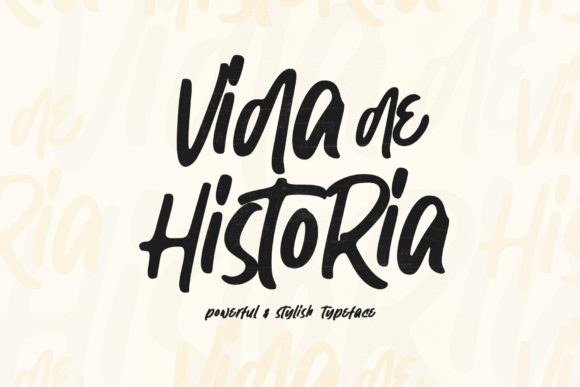
Introducing Vida De Historia, the display font that will transform your creative vision into a captivating reality. Crafted by the talented designers at Garisman Studio, Vida De Historia is a relaxed and adaptable font that will elevate your designs to new heights.
With its flowing curves and playful spirit, Vida De Historia is perfect for adding a touch of charm to your posters, presentations, and greeting cards. Its unique character will make your designs stand out from the crowd and leave a lasting impression on your audience.
Whether you're a seasoned designer or just starting, Vida De Historia is easy to use and incredibly versatile. Its smooth lines and consistent letter spacing make it a joy to work with, allowing you to create stunning designs effortlessly.
Step into a world of limitless creativity with Vida De Historia. Let your imagination soar as you craft captivating posters that draw attention from across the room. Engage your audience with vibrant presentations that leave a lasting impact. And create heartfelt greeting cards that express your emotions in a truly unique way.
With Vida De Historia, the possibilities are endless. Its versatility extends beyond posters, presentations, and greeting cards. Explore its potential in crafting eye-catching logos, elegant branding materials, and stunning social media graphics. Let Vida De Historia be your creative companion as you design with passion and purpose.
Don't settle for ordinary fonts that blend into the background. Embrace the extraordinary with Vida De Historia and watch your designs come alive with personality and charm.